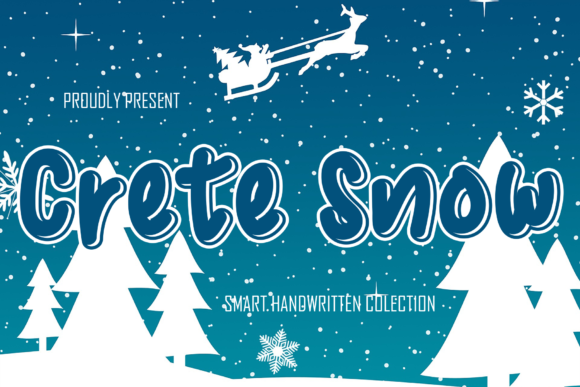
In a realm where creativity reigns supreme, where imagination takes flight, and storytelling captivates hearts, Crete Snow Font stands as a shining beacon, illuminating your designs with an aura of playfulness and charm. Whether you're a seasoned designer or just starting your artistic journey, this font is your gateway to a world of boundless expression.
Crete Snow, a script font that dances across the digital canvas like snowflakes twirling in a winter breeze, is a masterpiece crafted for those who dare to dream. Its curves flow with grace, its lines intertwine with elegance, creating a visual symphony that captivates and enchants.
Step into a world where your words come alive, where every letter becomes a character, and every sentence a captivating narrative. With Crete Snow, your designs will transcend the ordinary, becoming a feast for the eyes, an ode to joy, and a testament to your artistic prowess.
So embark on this creative adventure with Crete Snow Font. Let your imagination soar, let your creativity flow, and watch as your designs blossom into works of art that capture the essence of magic and enchantment.